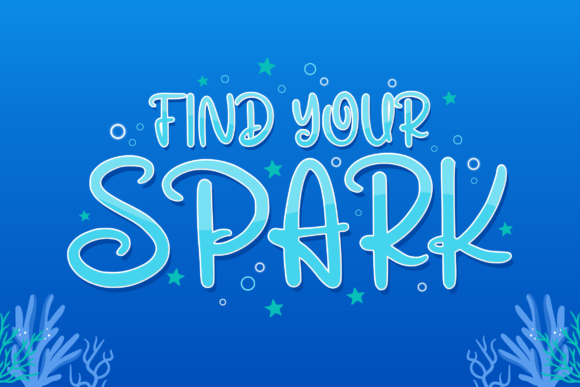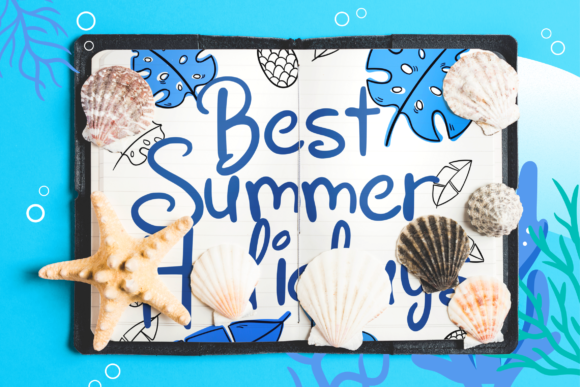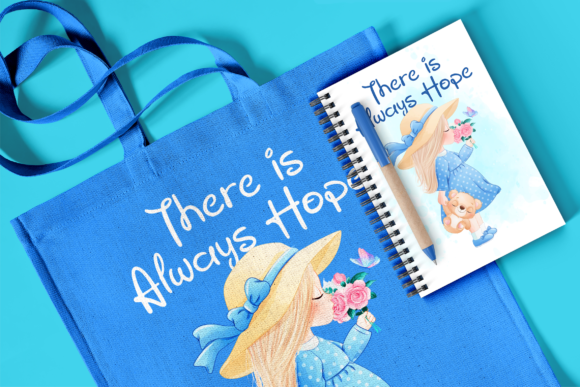
Introduction to Oceanic Cocktail Font
Have you ever been sipping on a refreshing cocktail by the ocean, feeling inspired by the warm sun and soothing waves? For many creatives, those moments of serenity can spark new ideas and fuel their next design project. And for those who love the beachy vibe, the Oceanic Cocktail Font is about to become your new go-to design resource.
This beautiful, handwritten font is a perfect blend of relaxation and high-quality design. With its cute, round letters and unique touch, it’s sure to bring a smile to your face and add a personal touch to your creative project. Whether you’re looking to create an eye-catching logo, branding, or quote, the Oceanic Cocktail Font is an ideal choice.
Key Features of Oceanic Cocktail Font
- Unique, hand-drawn design with a tropical feel, perfect for creative projects and design resources.
- High-quality font with a transparent background, allowing for seamless integration into any design.
- Designed to be versatile, suitable for a variety of design applications, from branding and marketing materials to digital products and print media.
Honest Review: Oceanic Cocktail Font
I recently had the chance to work with the Oceanic Cocktail Font, and I must say it’s a real treat. As a designer, I’m always on the lookout for high-quality fonts that can elevate my creative projects. This font delivers.
- ✨ Unique and stylish: The Oceanic Cocktail Font has a one-of-a-kind design that’s perfect for adding a touch of elegance to your designs.
That being said, I did encounter a few limitations:
- ⚠️ Not ideal for body text: While the font is perfect for headlines and titles, it may not be the best choice for body text due to its ornate design.
Overall, I’m impressed with the Oceanic Cocktail Font. Its unique design and free download make it a valuable addition to any designer’s toolkit. Just be aware of its limitations and use it judiciously to get the most out of it.
Experiment with different font sizes, colors, and styles to create unique designs. Use the font in combination with other design elements, such as images and graphics, to add depth and interest to your design. Consider using the font in a creative project, such as a menu or brochure, to add a touch of sophistication.
The Oceanic Cocktail Font is perfect for use in a variety of design contexts, including restaurant menus, cocktail recipes, and travel brochures. Its high-quality design and transparent background make it an ideal resource for designers looking to create unique and eye-catching designs.